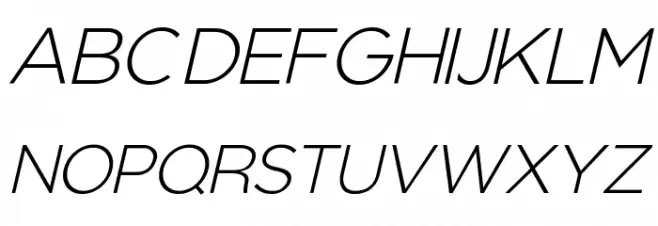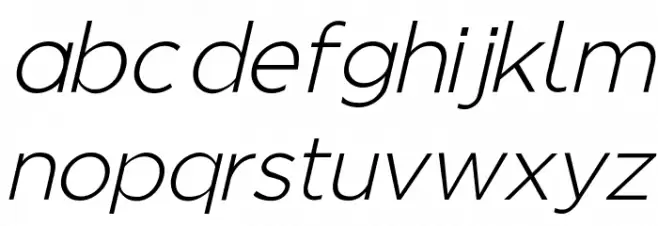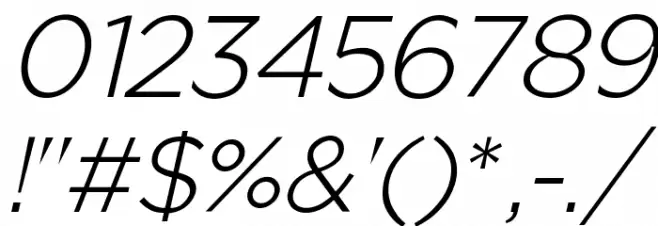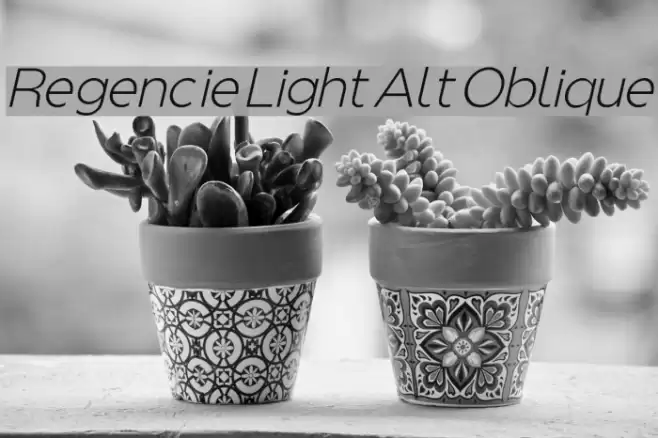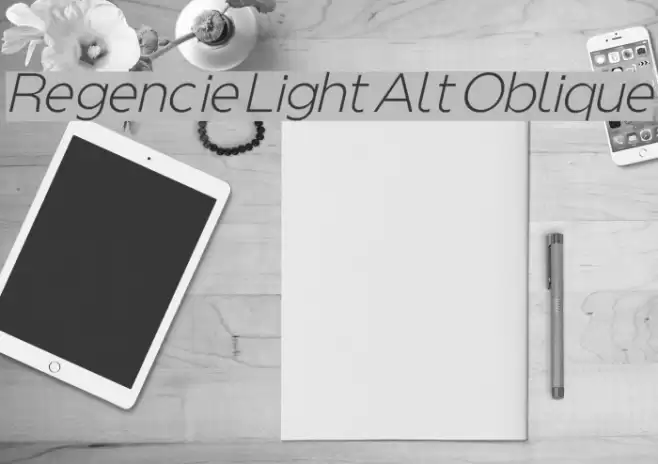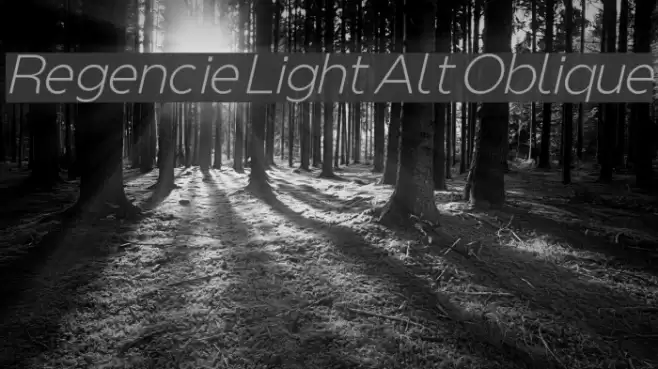
Regencie Light Alt Oblique
This font features a sleek and modern design with a light weight and oblique style. The characters are elegantly crafted with smooth curves and a slight slant, giving it a dynamic and sophisticated appearance. The uppercase and lowercase letters maintain a consistent flow, while the numerals are clear and easy to read. Special characters are well-integrated, enhancing the font's versatility. The overall look is clean and minimalistic, making it suitable for contemporary design projects.
A sleek, modern, light, and oblique font with smooth curves.
- Proposed Projects: Ideal for branding, editorial design, digital interfaces, and modern advertising.